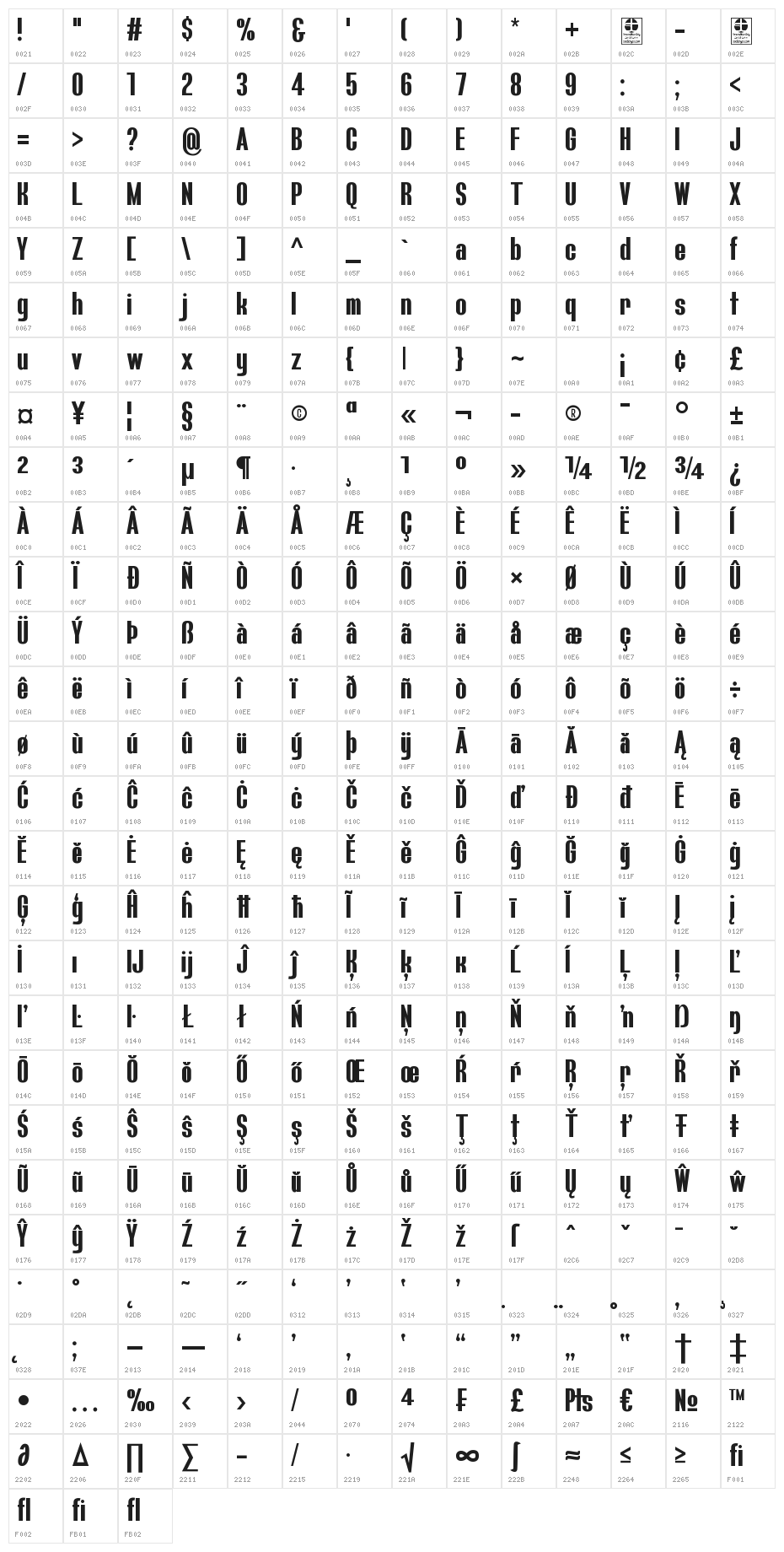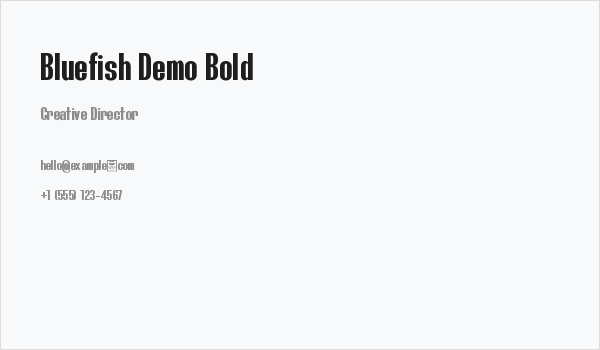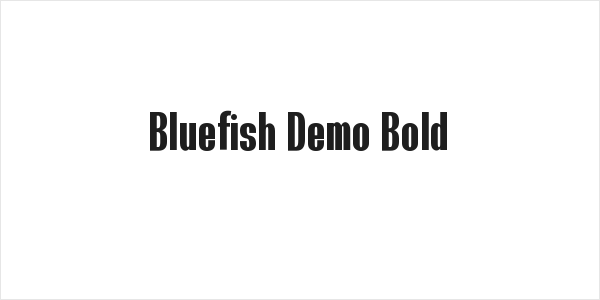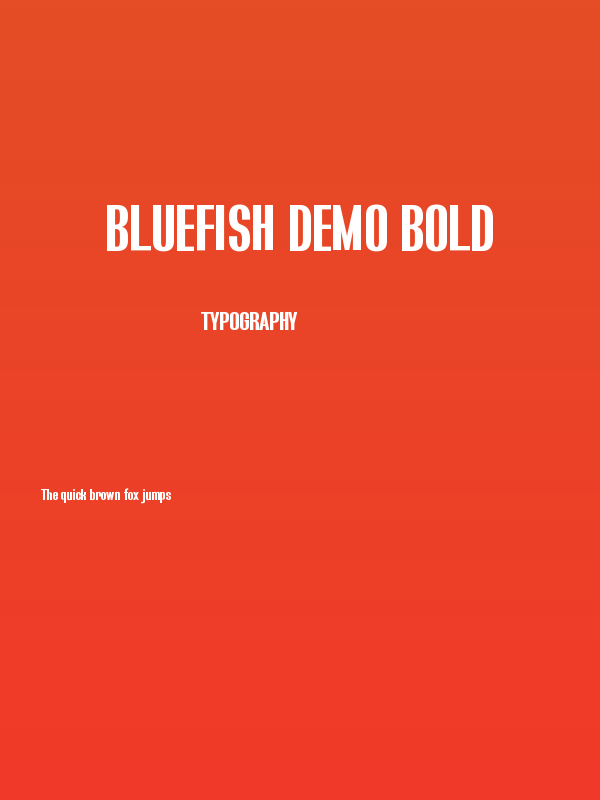
Bluefish Demo Bold Font
Bluefish Demo Bold Description
This bold and impactful font features strong, thick strokes that convey a sense of power and confidence. The uppercase and lowercase letters are designed with a consistent width, giving the font a uniform appearance. The numerals are equally bold, ensuring they stand out in any context. Special characters maintain the same weight, providing a cohesive look across all glyphs. The font's design is modern and assertive, making it suitable for attention-grabbing headlines and statements.
| Proposed Projects | Ideal for posters, headlines, branding, and advertising where a strong visual impact is needed. |